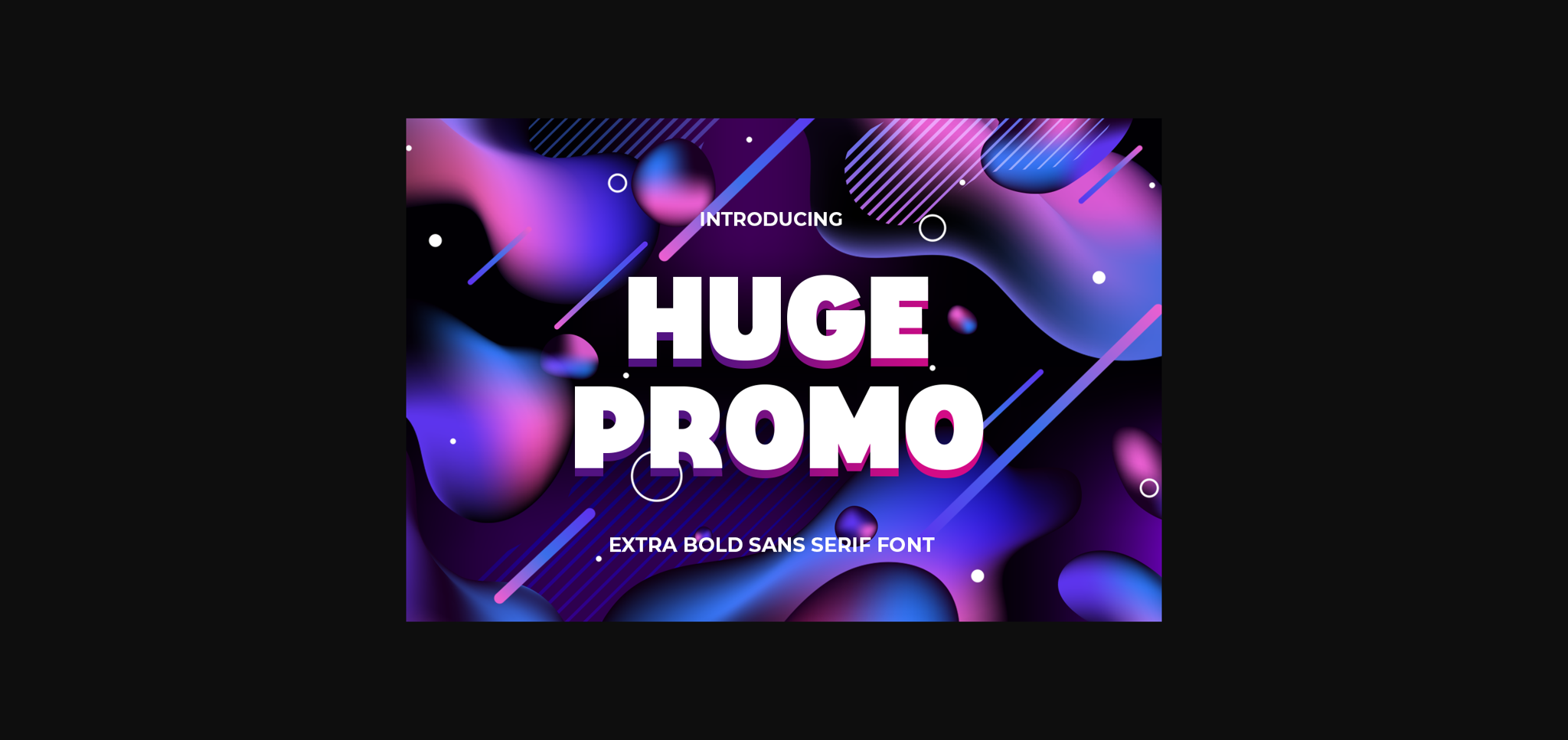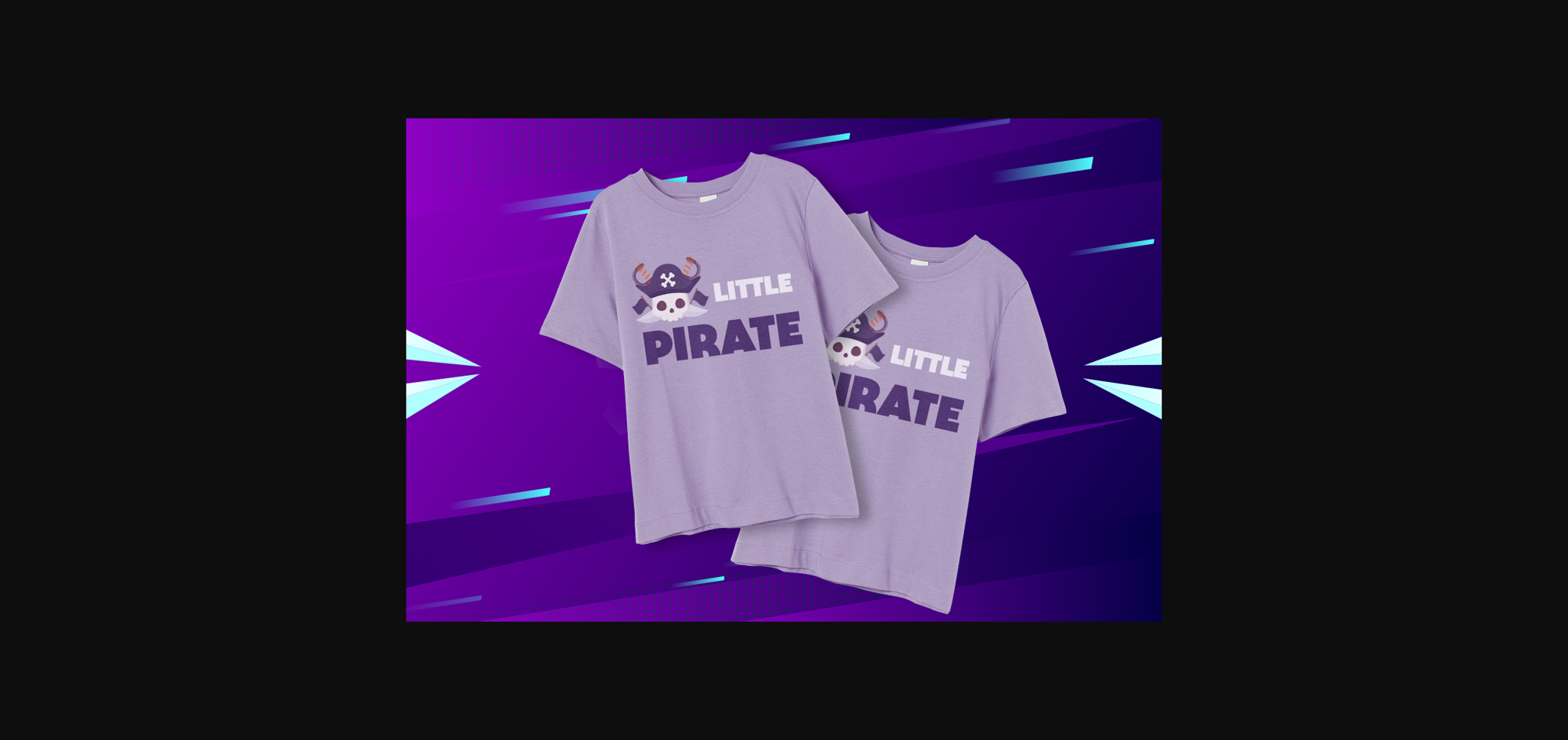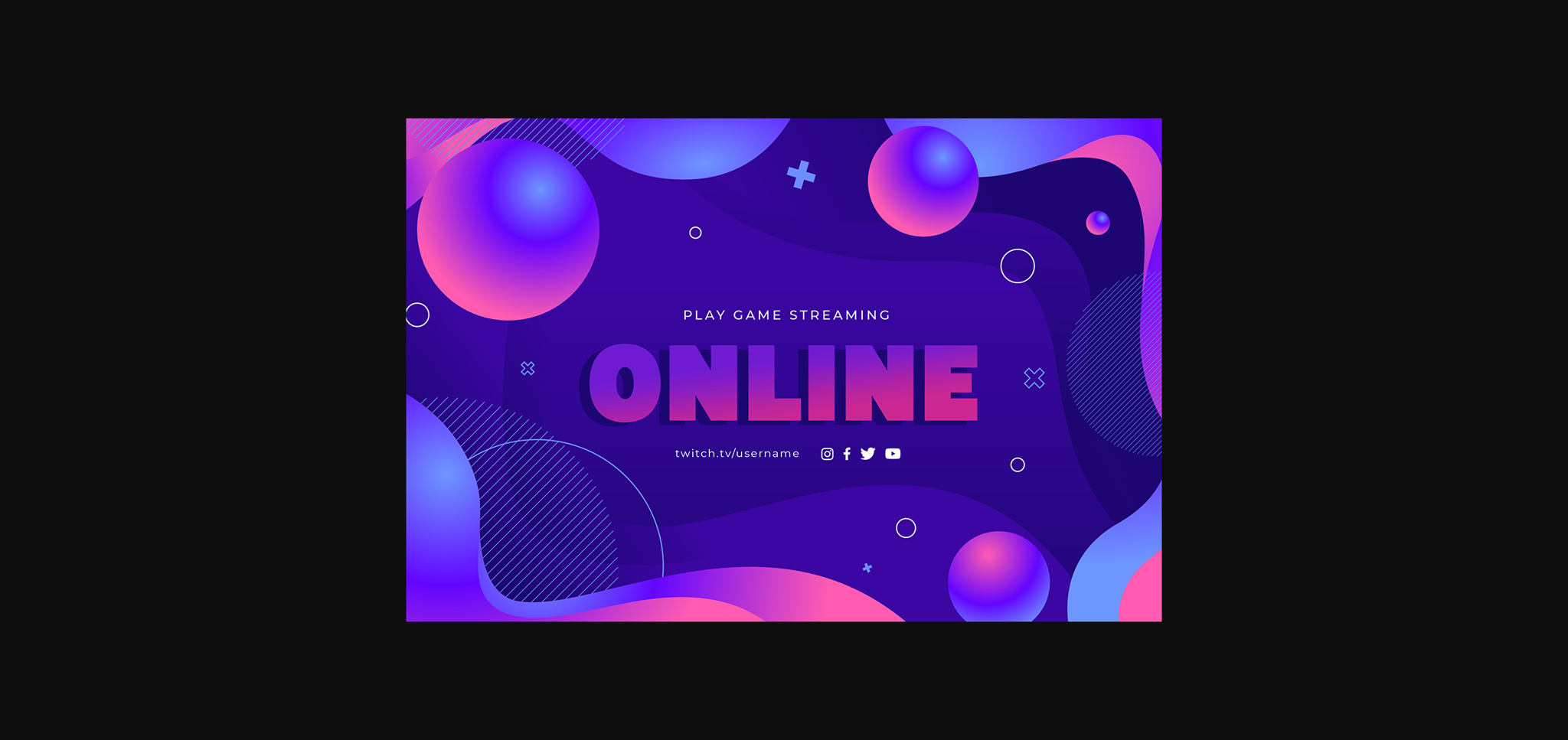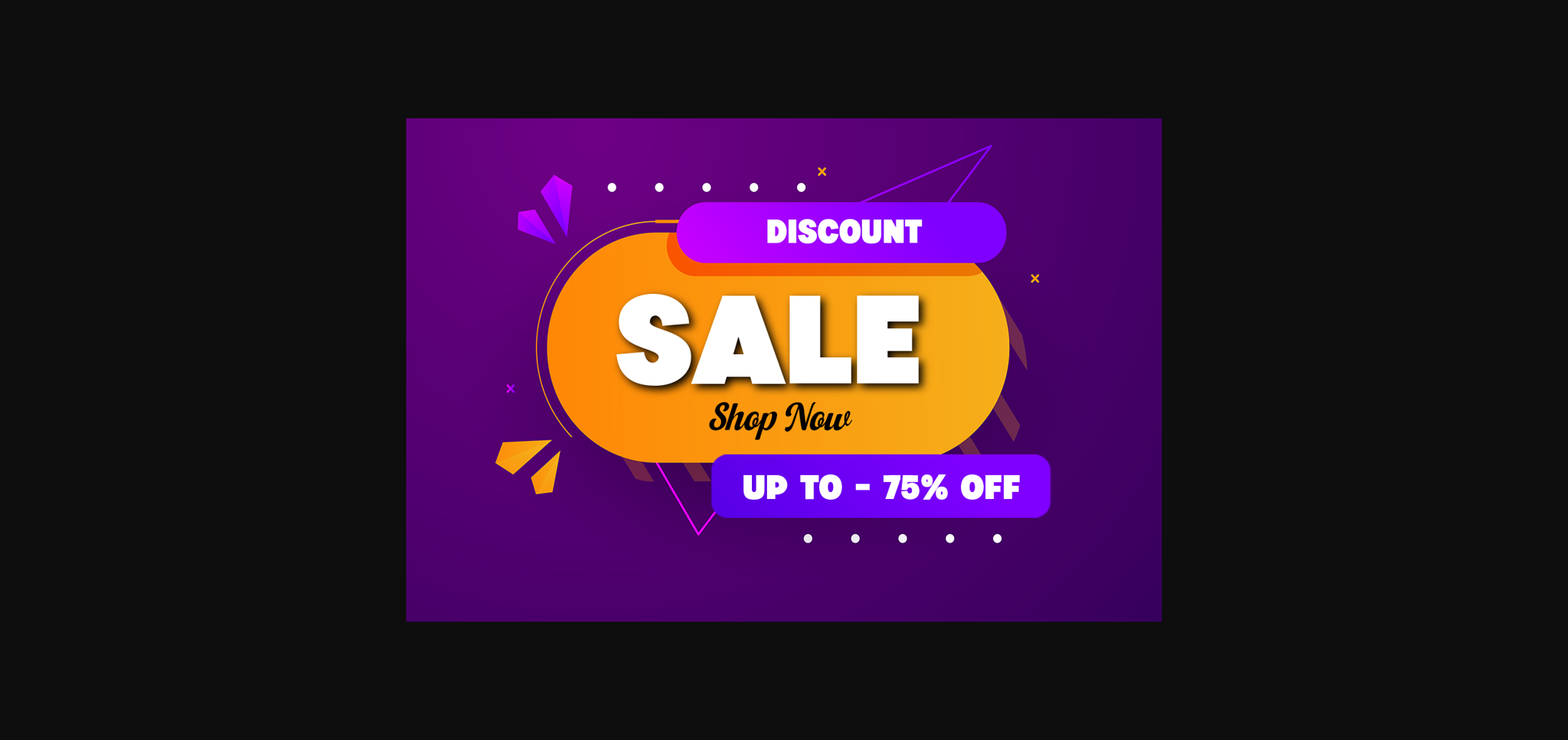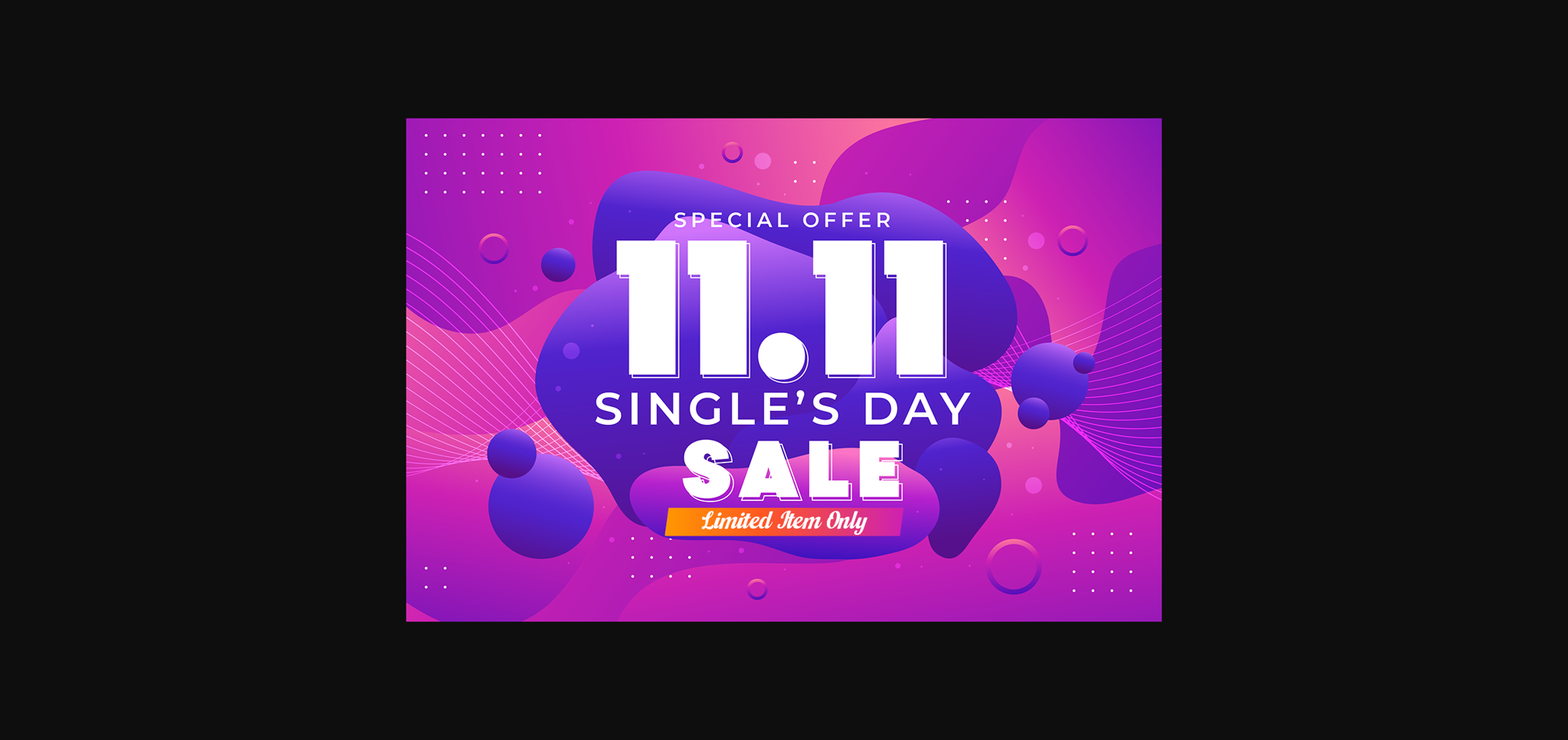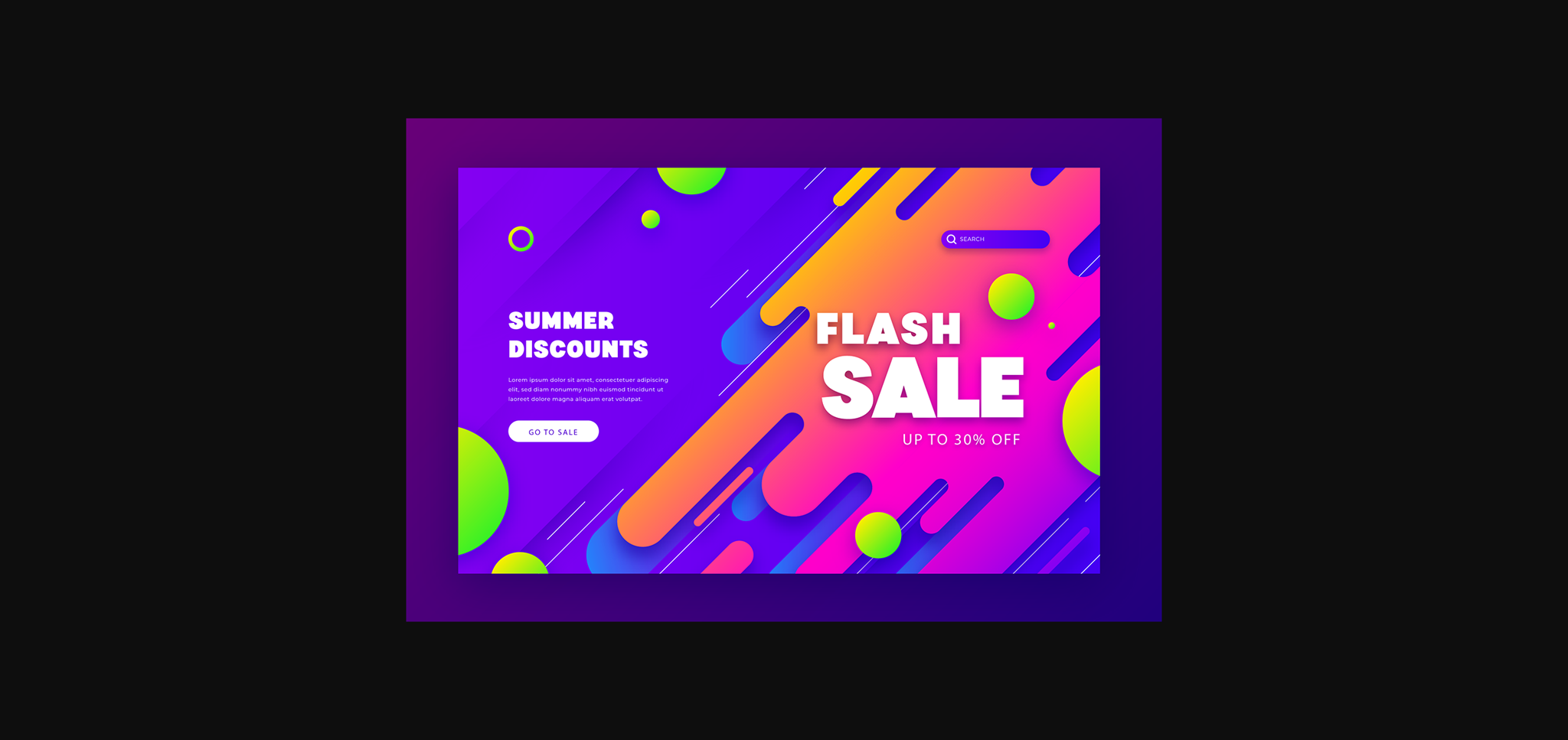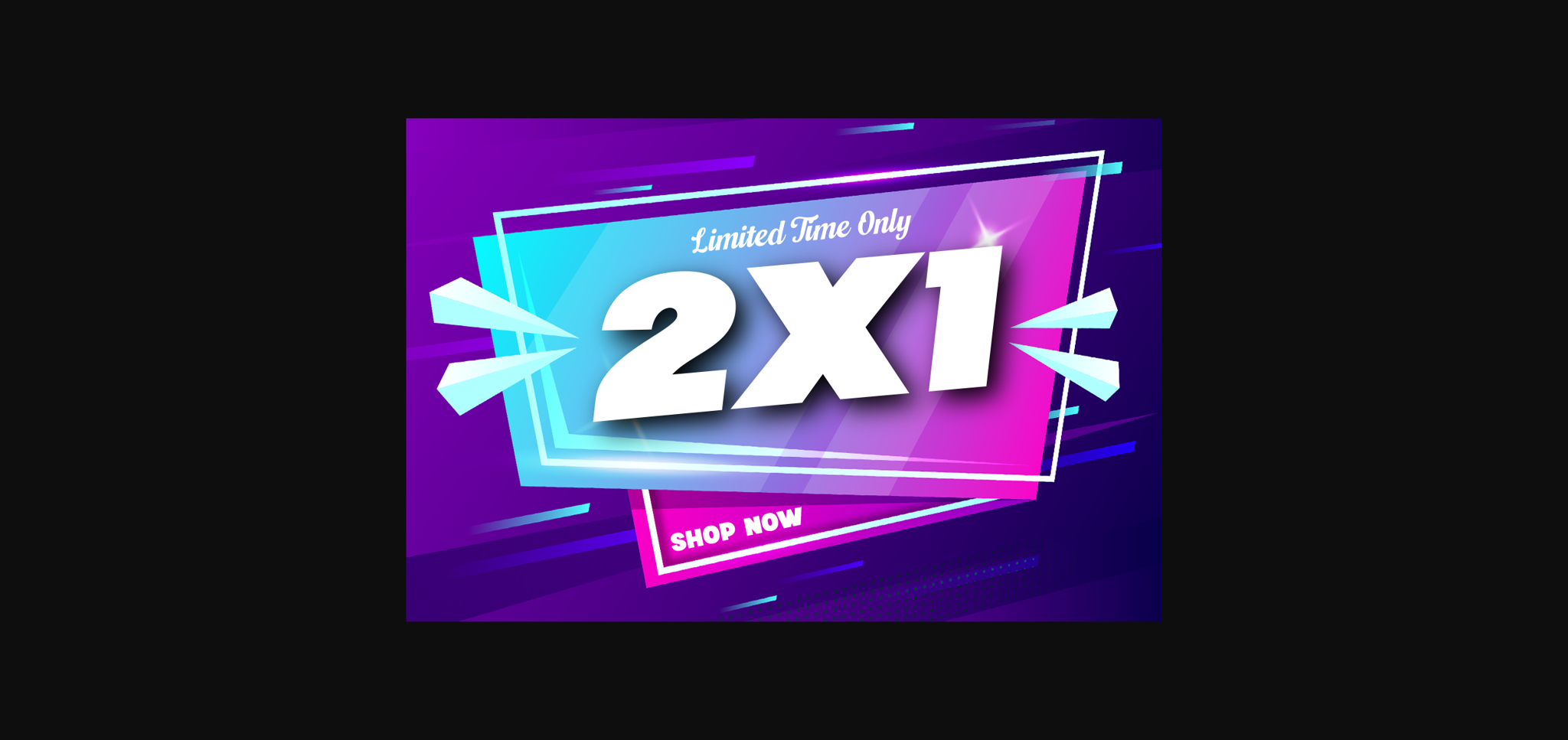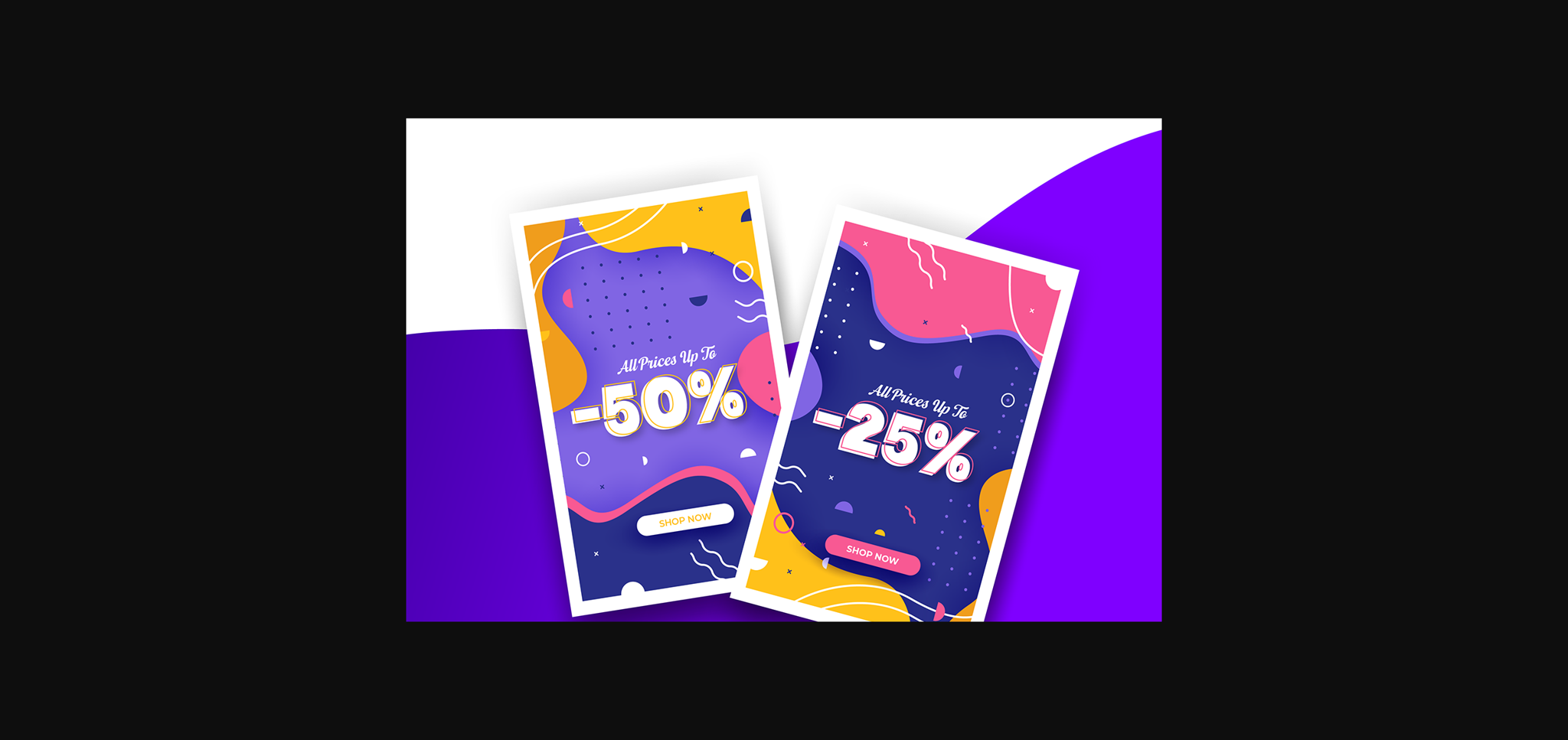
Huge Promo Font
About Huge Promo Font
Huge Promo is an extra bold sans serif font with a bold body, perfect for headline use on promotion, social media, logos, invitations and so much more.